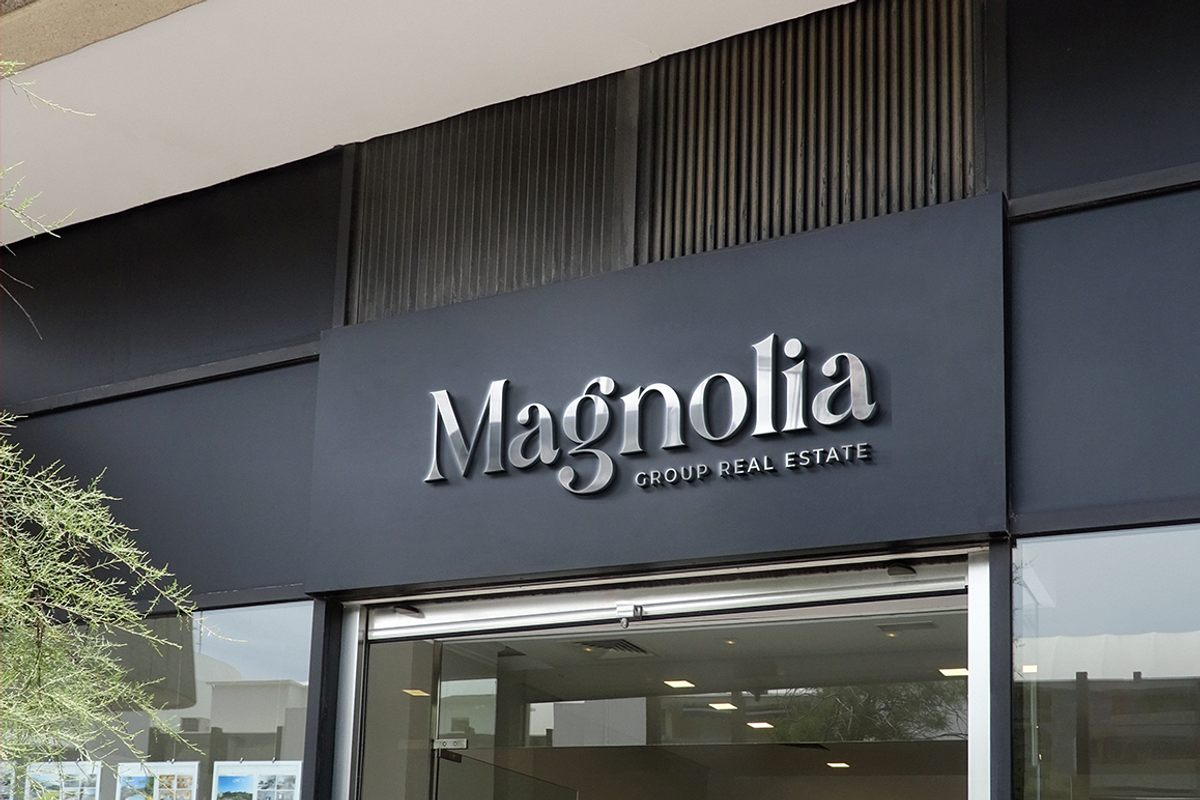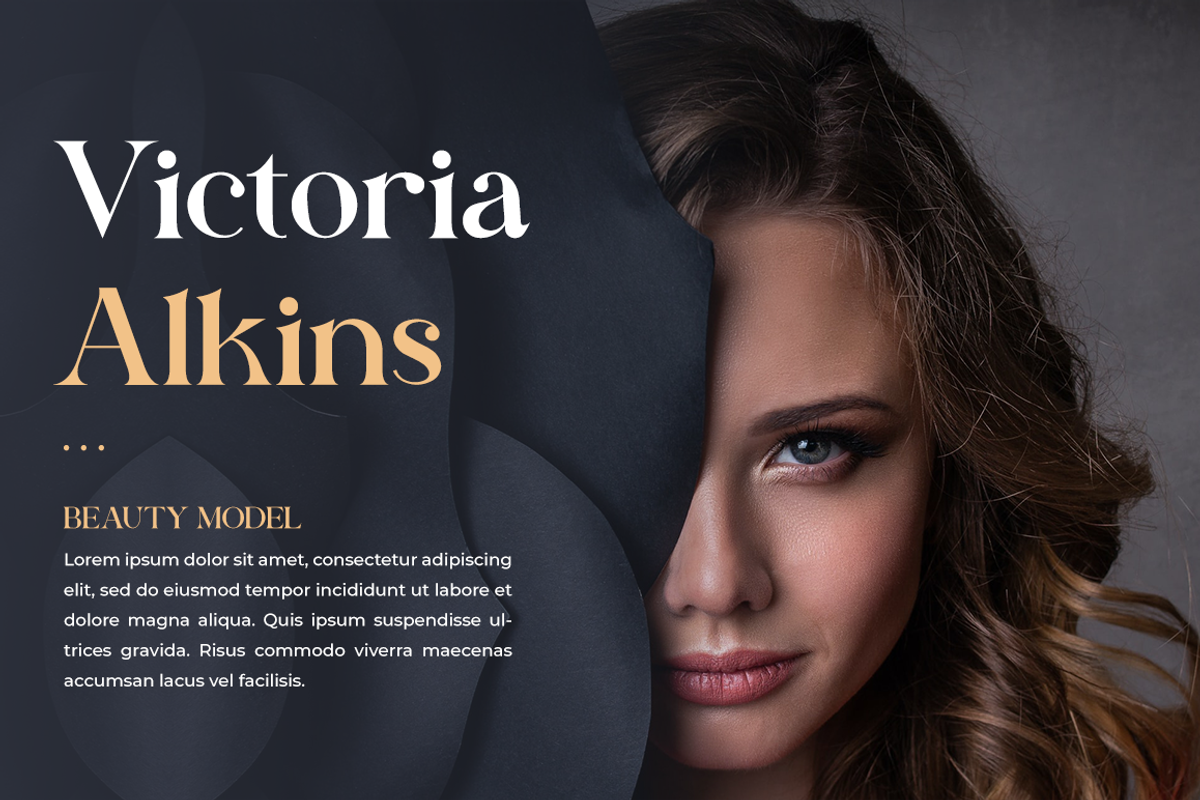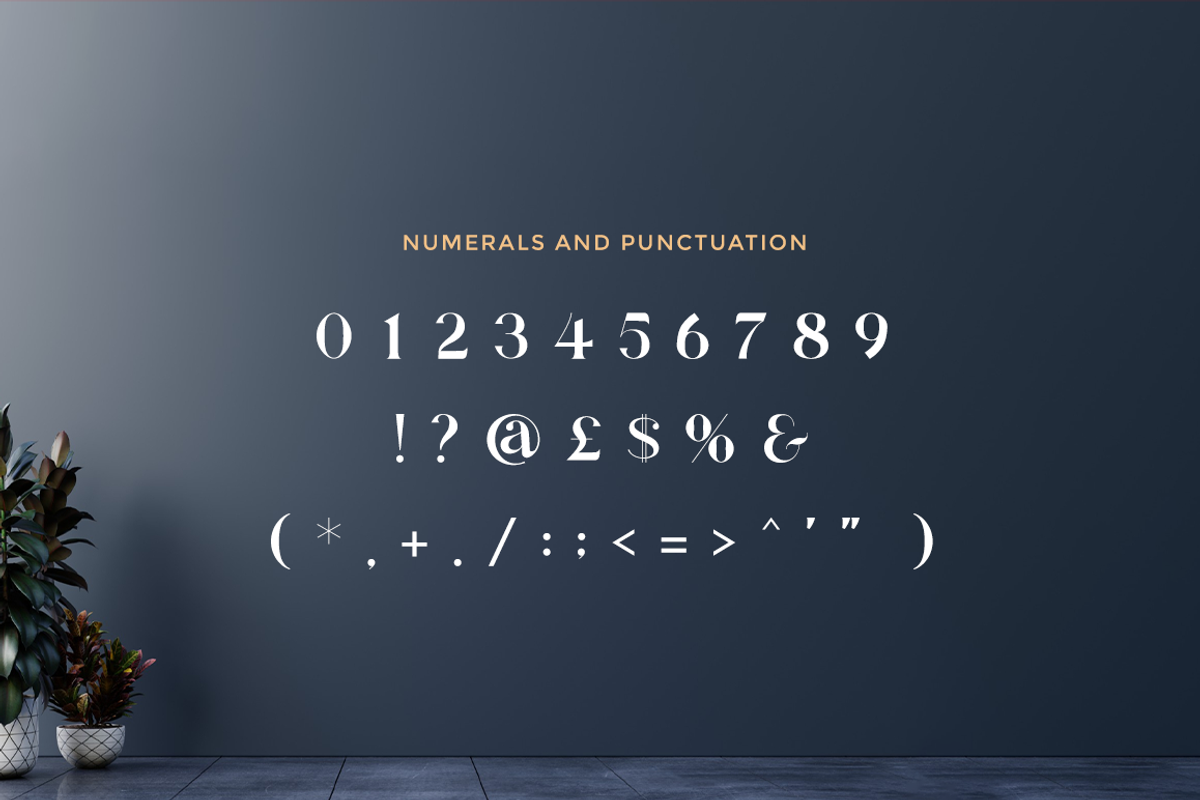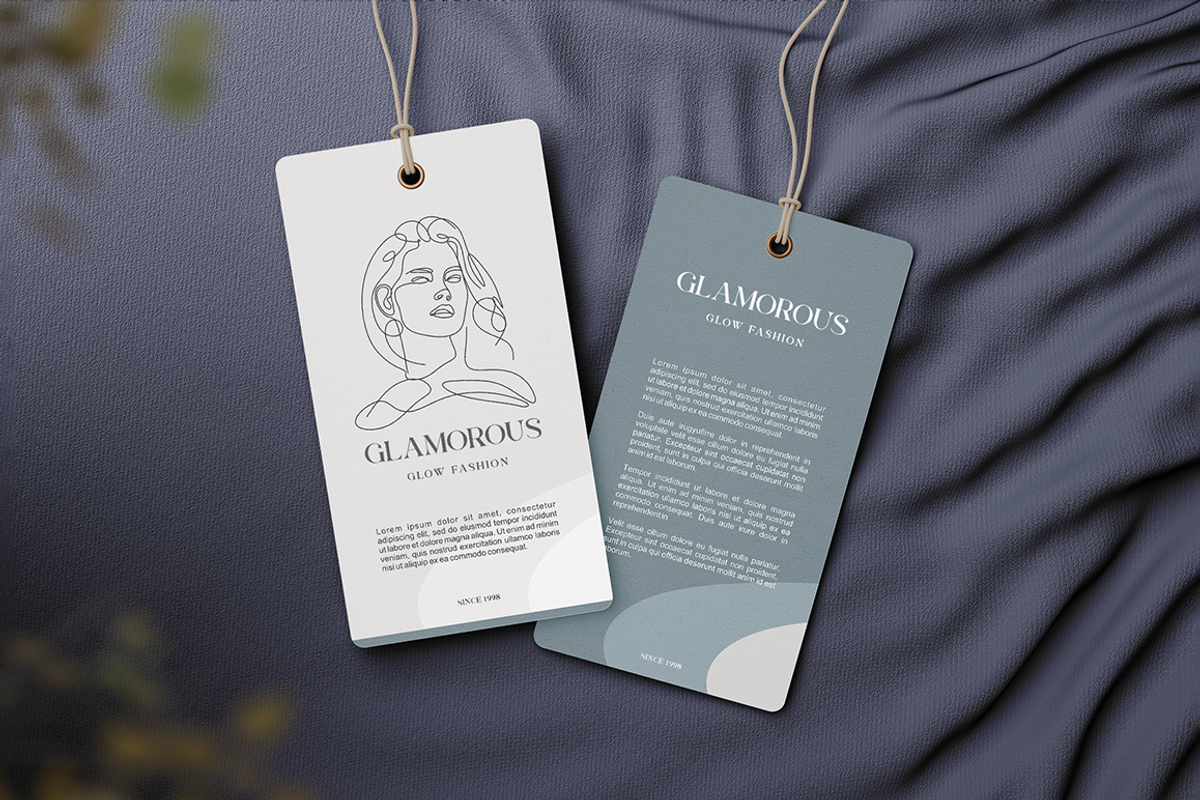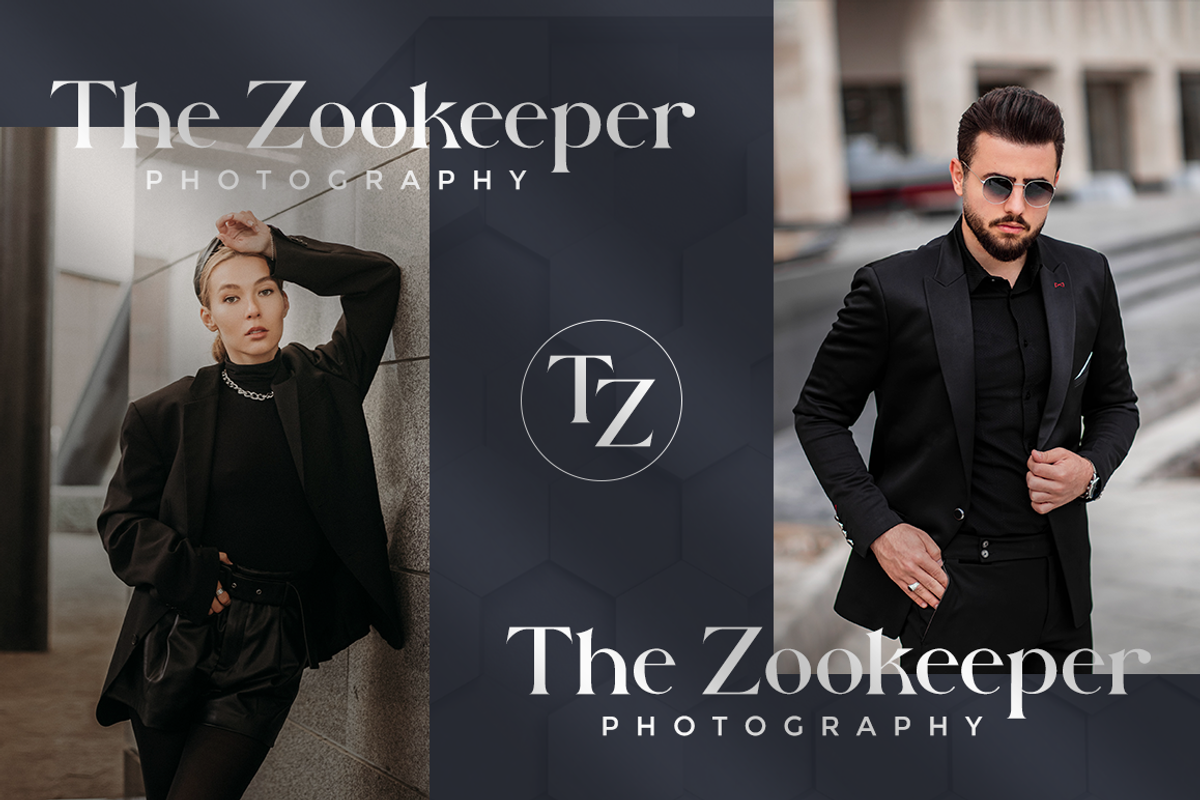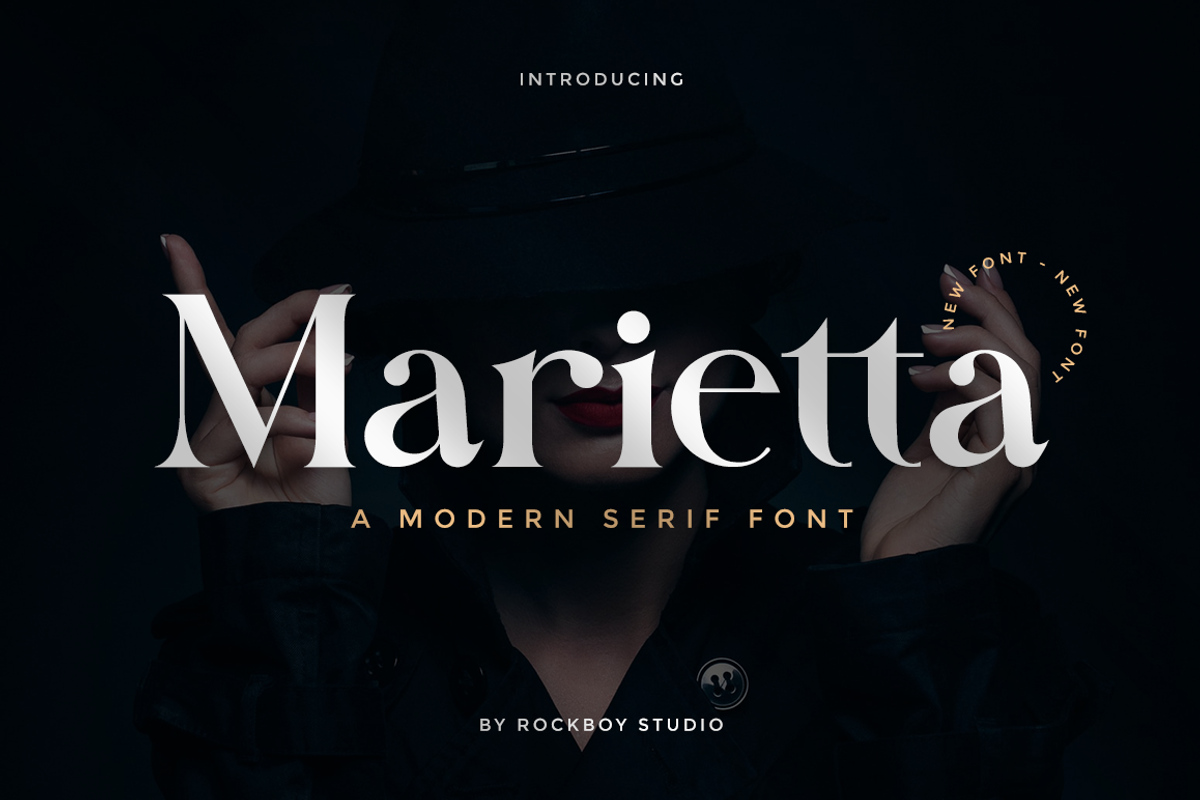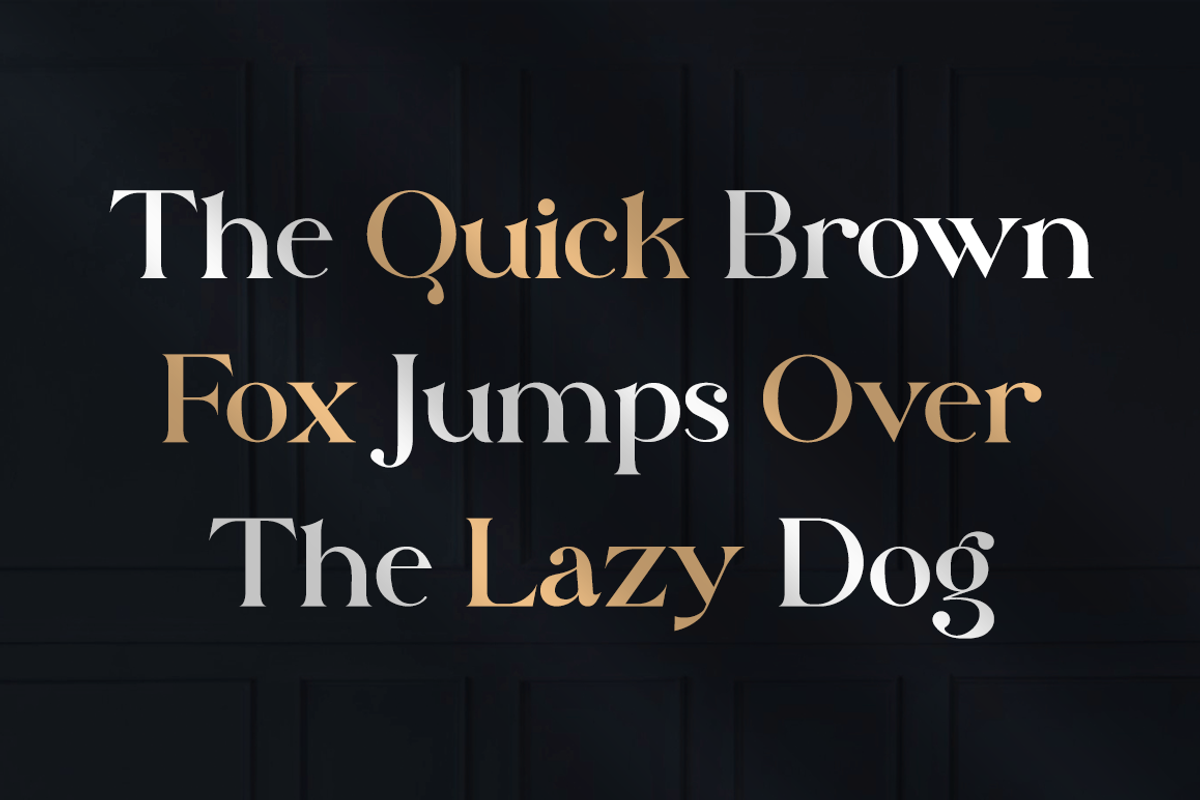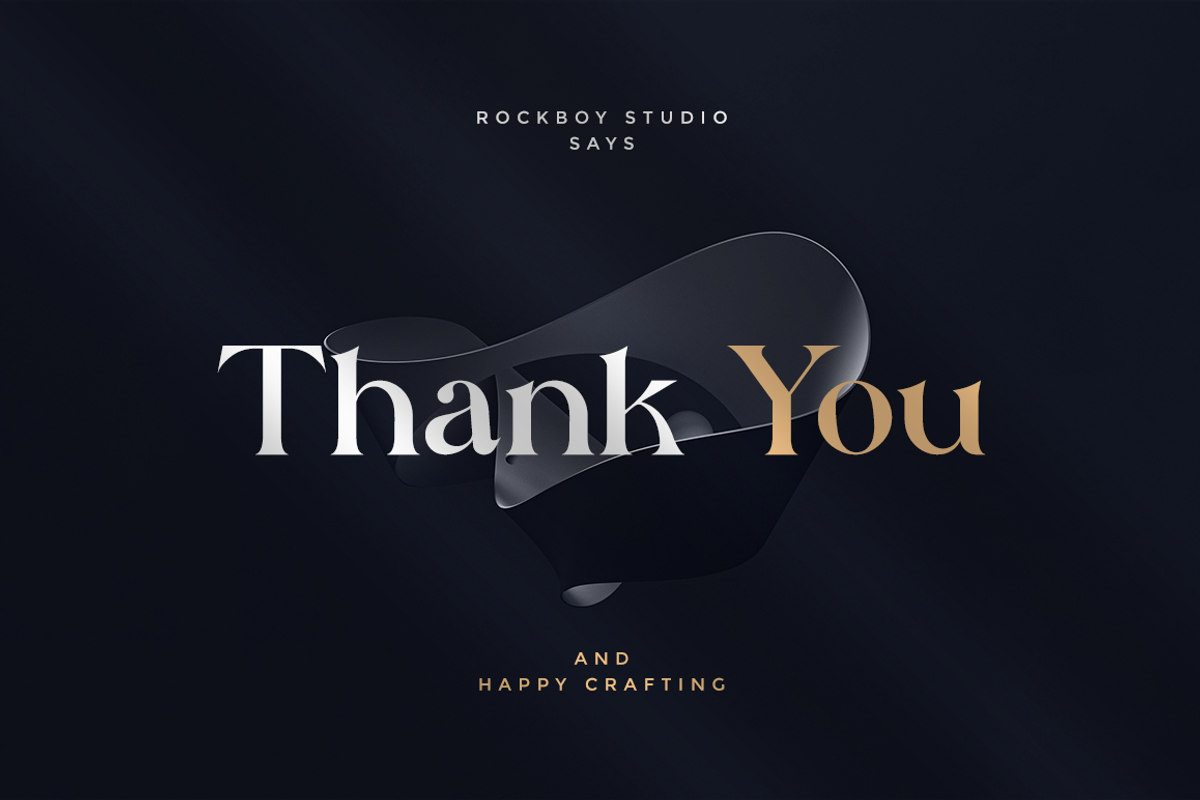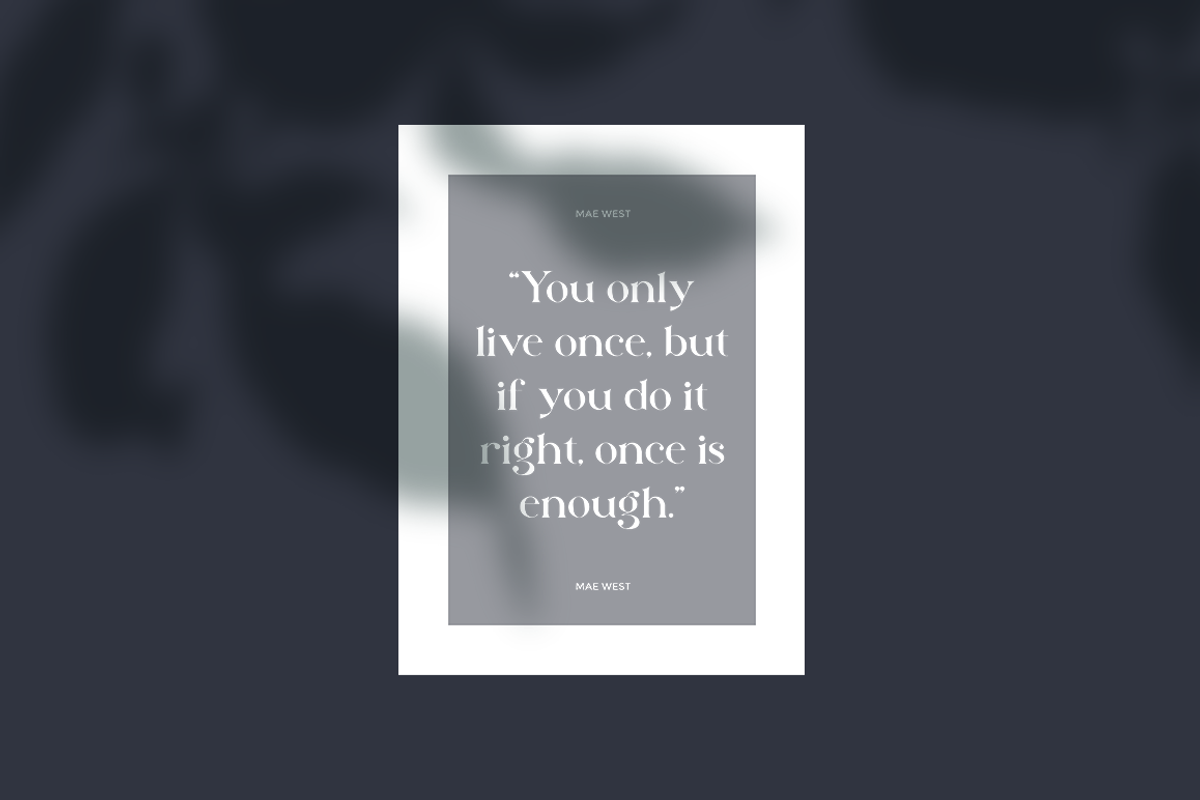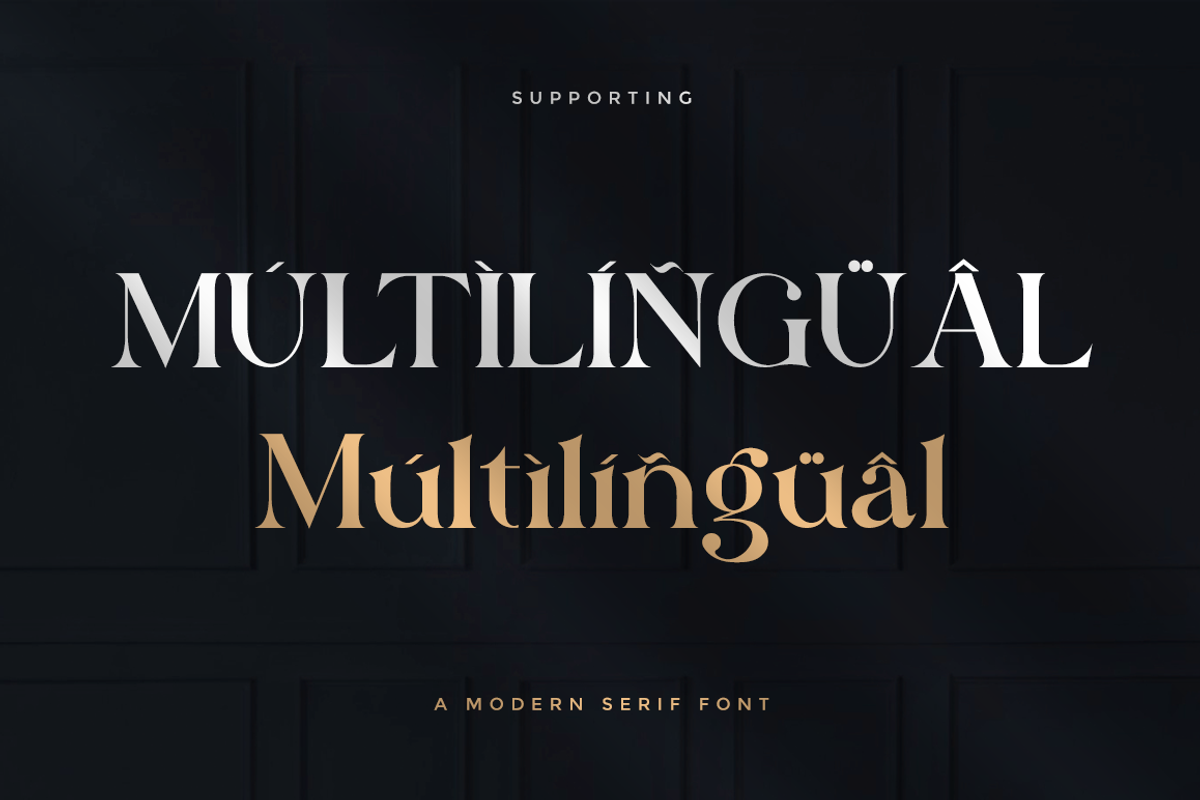
Marietta - Business Font
Marietta is an elegant and authentic serif font. No matter the topic, this thin font will be an incredible asset to your library, as it has the potential to elevate any creation.